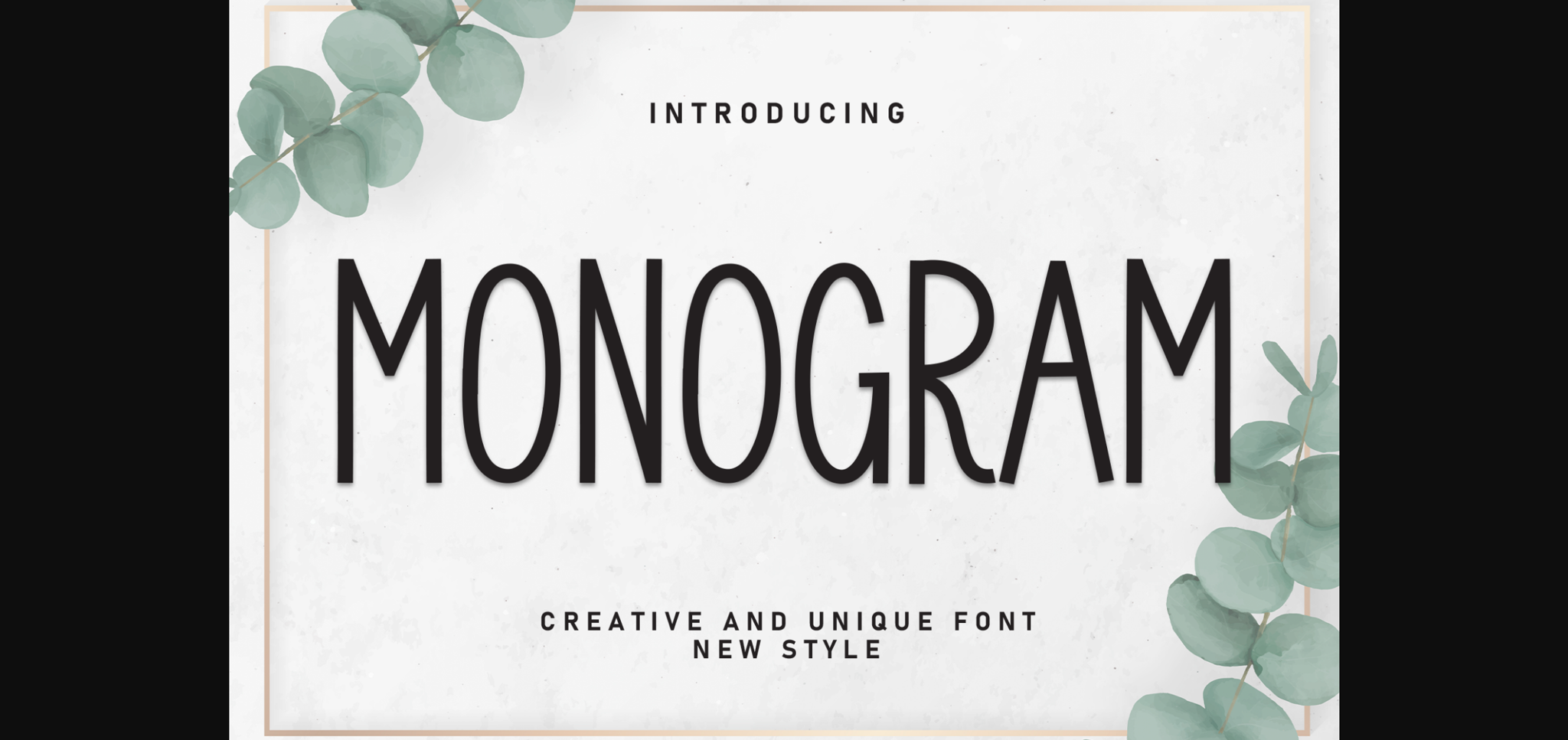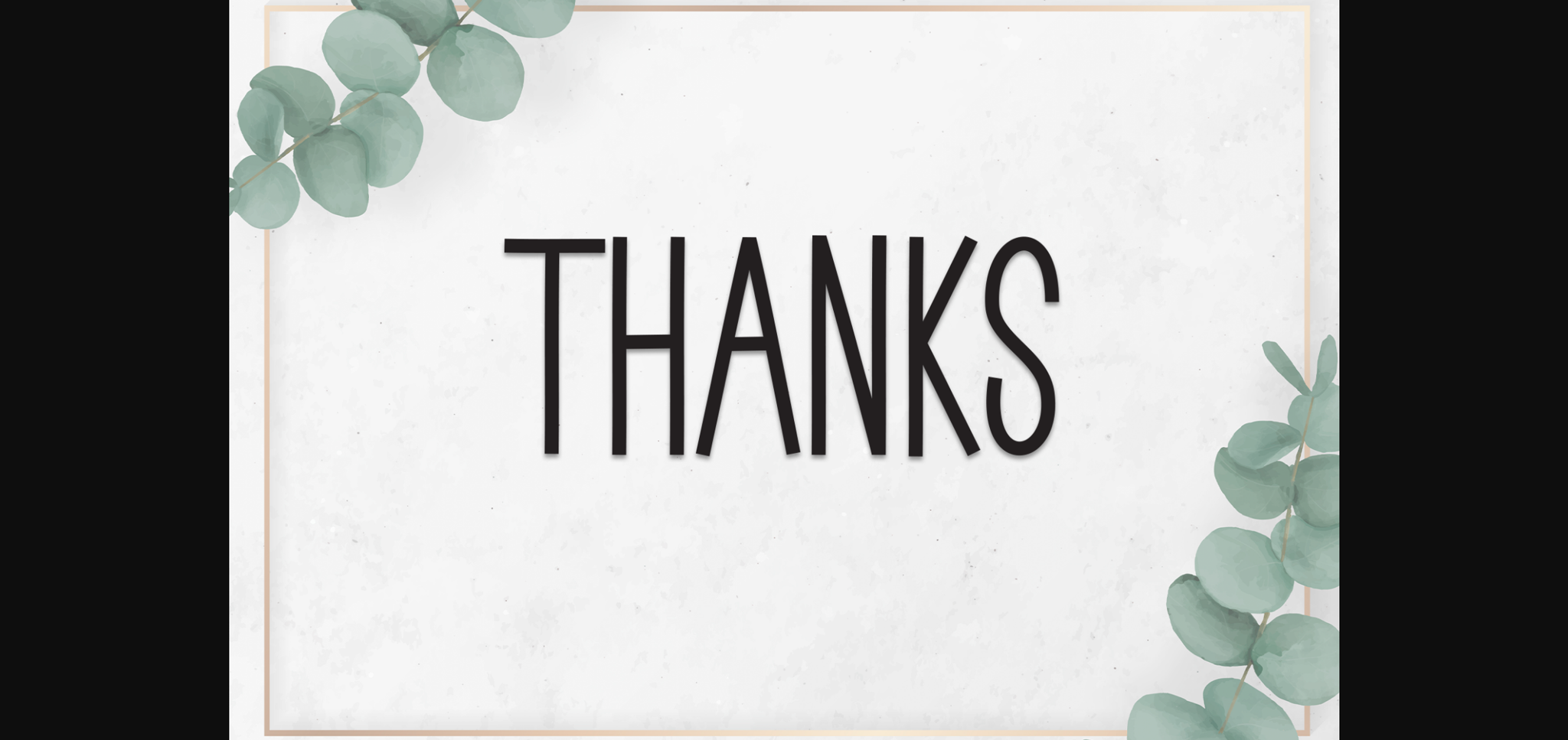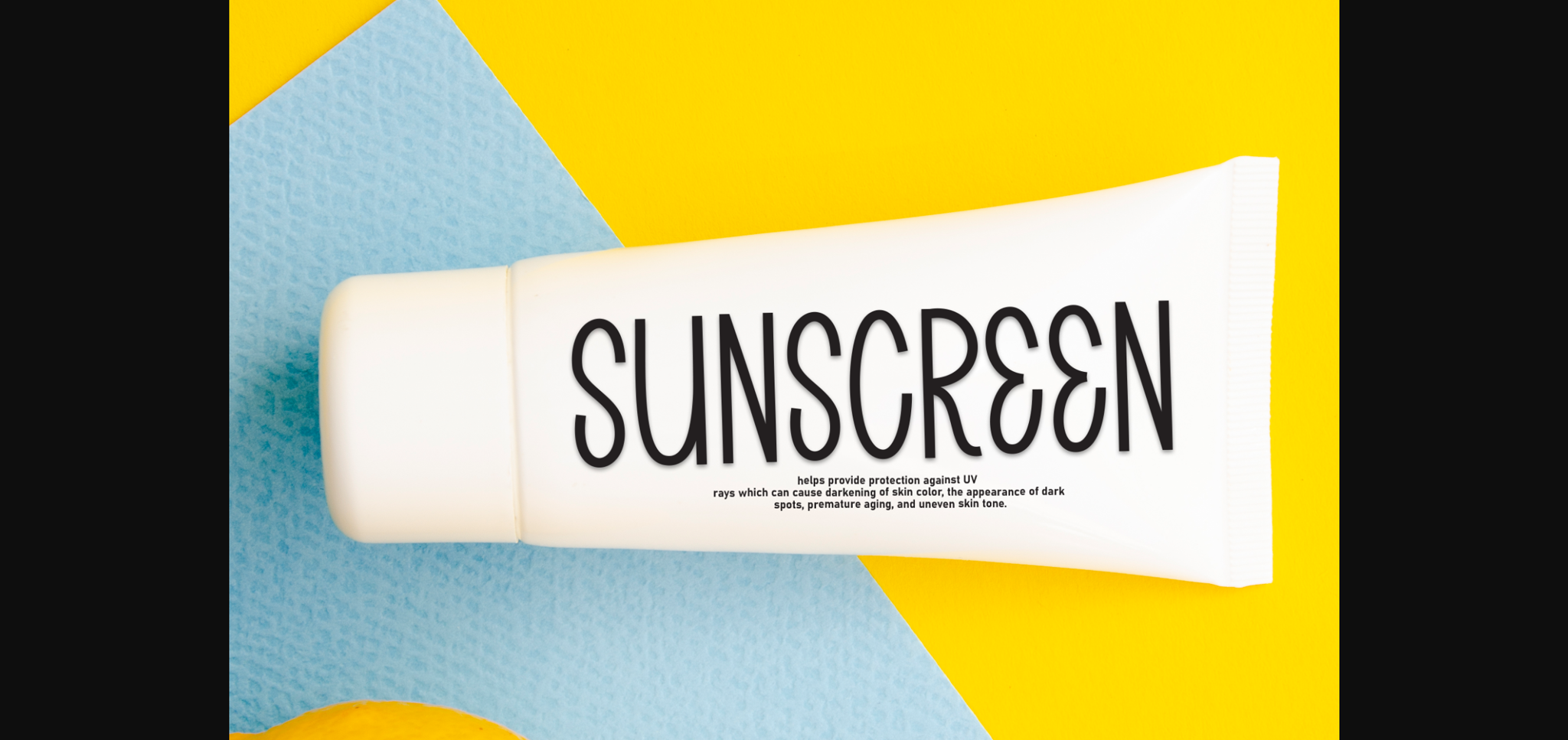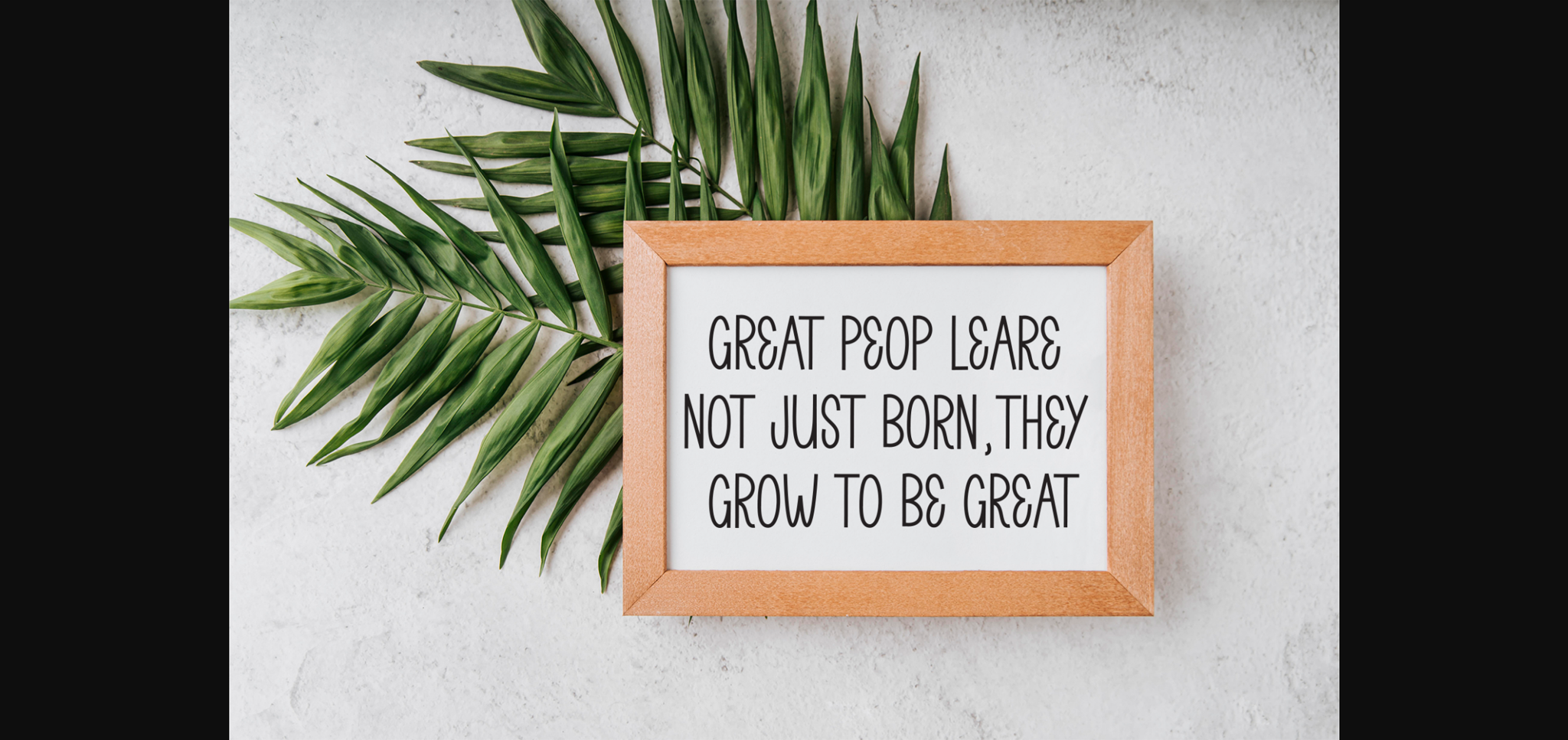
About Monogram Font
Introducing a charming sans-serif font; in all its allure, it breathes life into your creative conversation. With its adorable and playful charm, this font is perfect for embellishing wedding invitations, card designs, or any artistic endeavor in need of a delightful twist! Imagine your narrative swirling in the carefree strokes of this enticing handwritten display font – it’s truly the perfect algorithm for smiles.